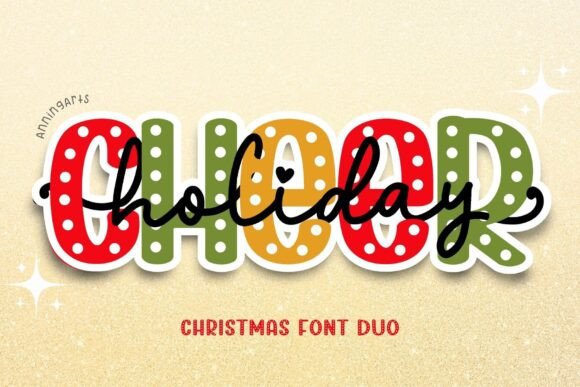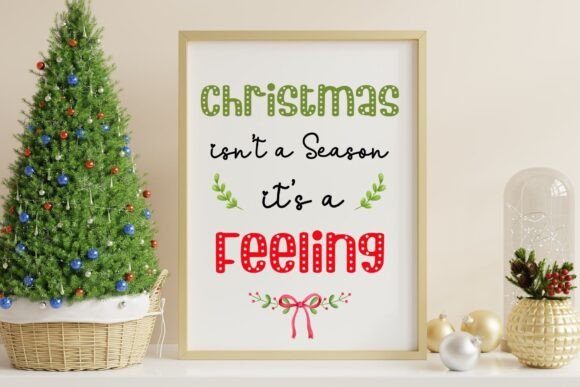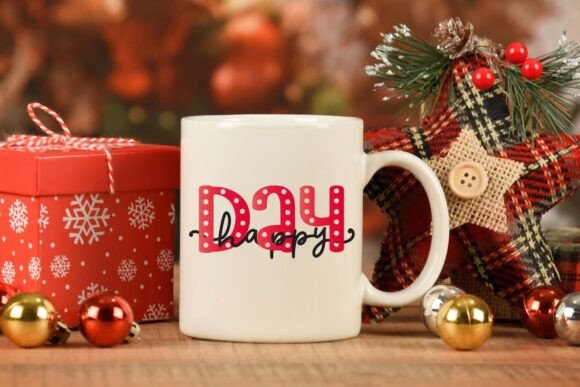
Introduction to Holiday Cheer Font
Holiday Cheer is a playful font duo.
This set consists of a script font and a handwritten font, providing a wide range of unique and attention-grabbing design choices You can utilize this pair of fonts to create various designs, including mugs, bags, shirts, pillows, and more.